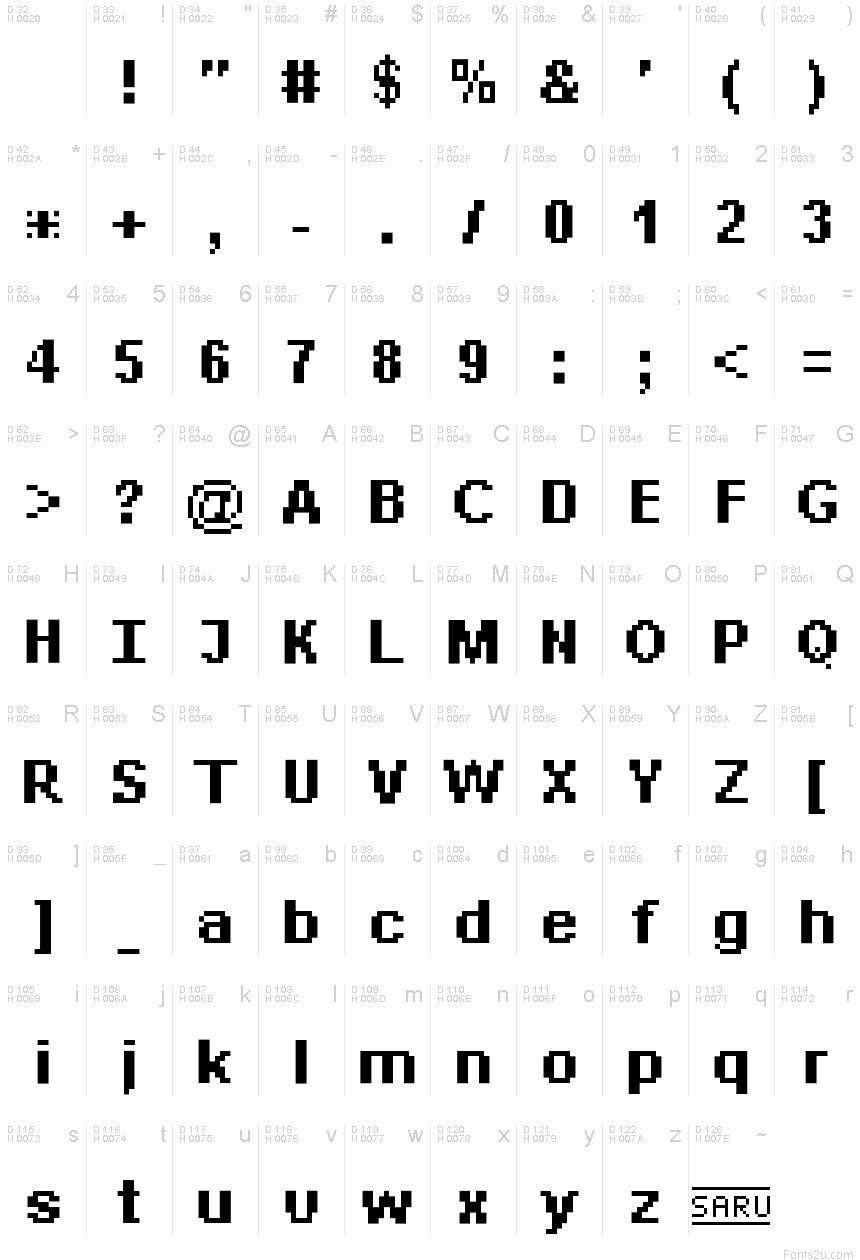
Bit Daylong11 (sRB)
Bit Daylong 11 (sRB) font by sRB-Powers is a free bitmap pixel typeface with a wiry, slightly quirky rhythm that feels straight out of an 8‑bit console. Its tall, lean letters are built from crisp square blocks, giving text a crunchy, low-res texture that still reads cleanly at small sizes. The spacing is tight and consistent, so long strings of text form neat, flickering lines that look like they’re glowing on an old CRT screen.
Using Bit Daylong 11 (sRB), you get the kind of authentic pixel voice that shines on retro game UIs, score counters, terminal-style dashboards, chiptune album art, overlays for pixel art, and lo‑fi web banners. This free font thrives when rendered sharp at native pixel sizes; avoid smoothing to keep its grid intact. For body copy or supporting text, pair it with a simple modern sans-serif to let the chunky bitmap letters stay in the spotlight.